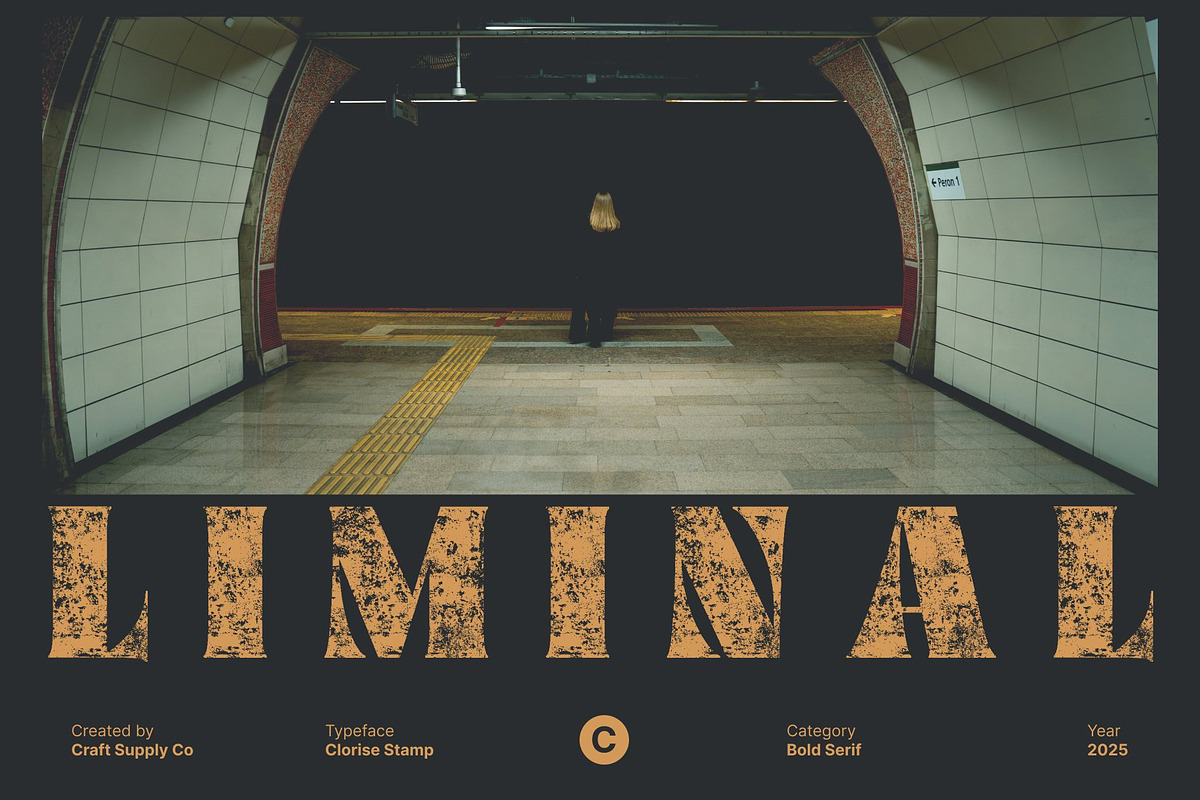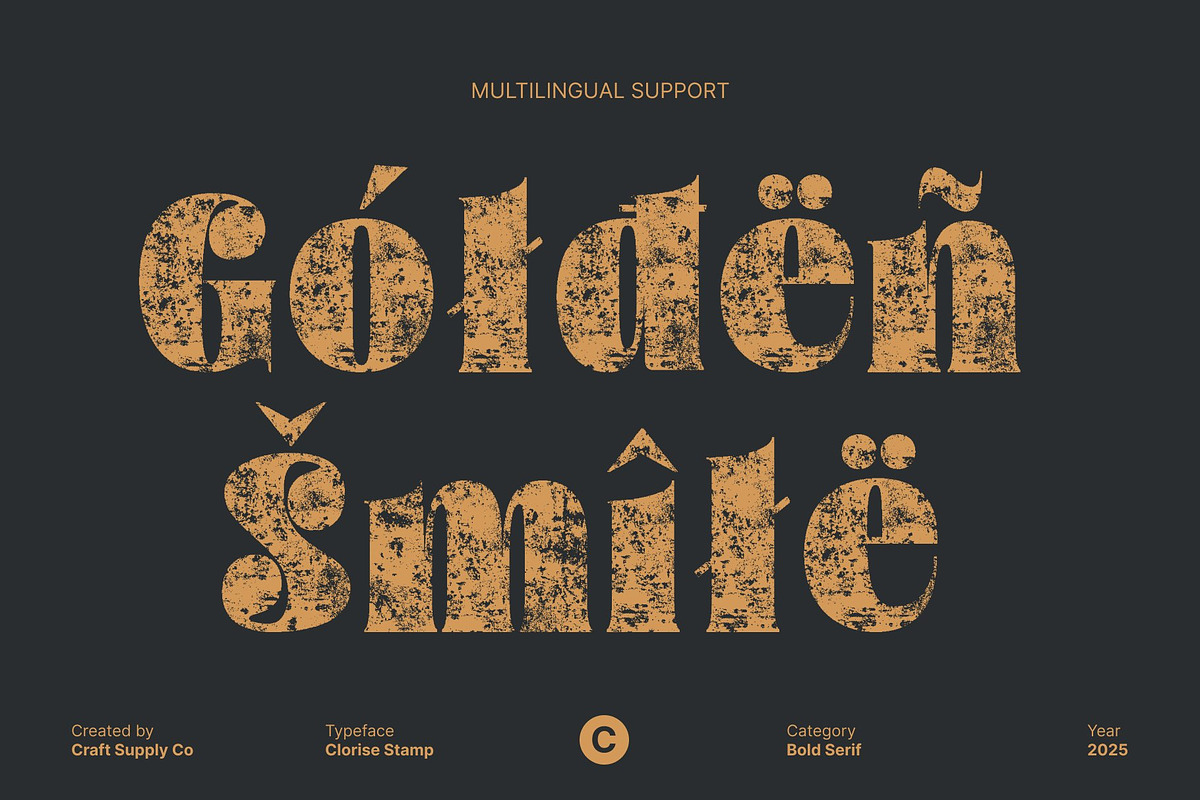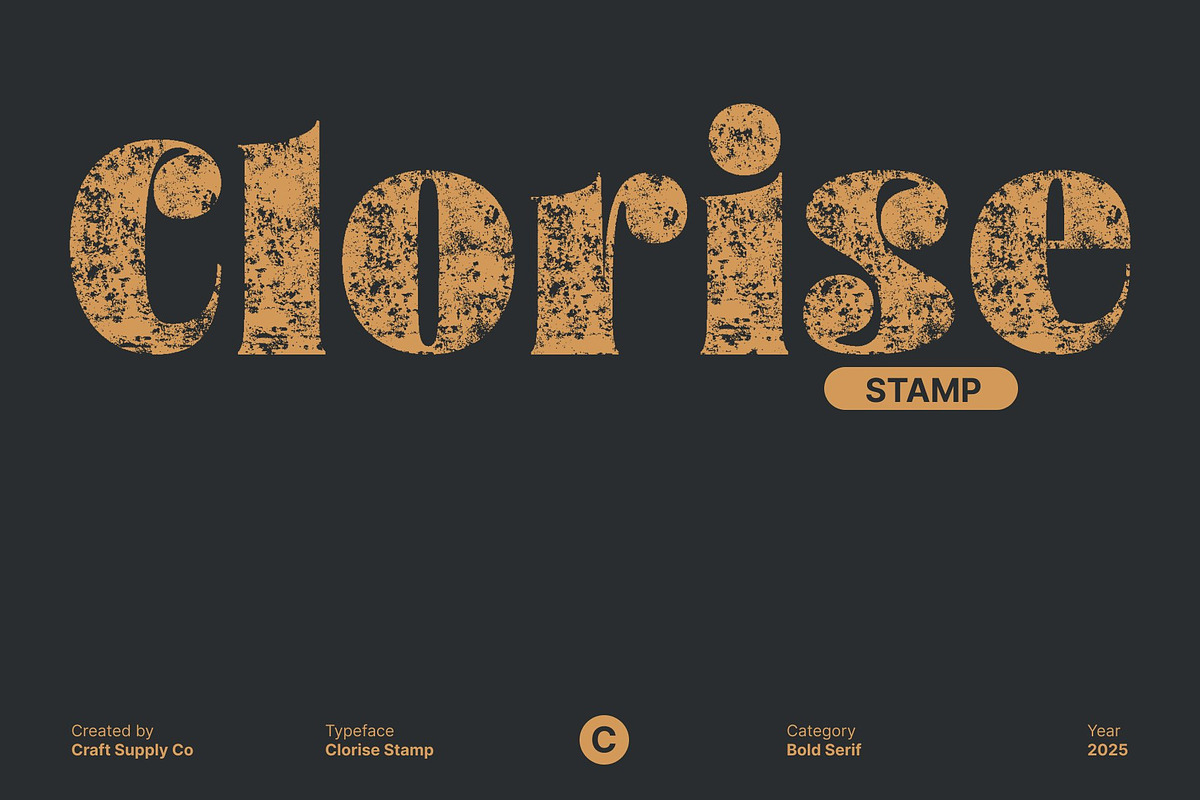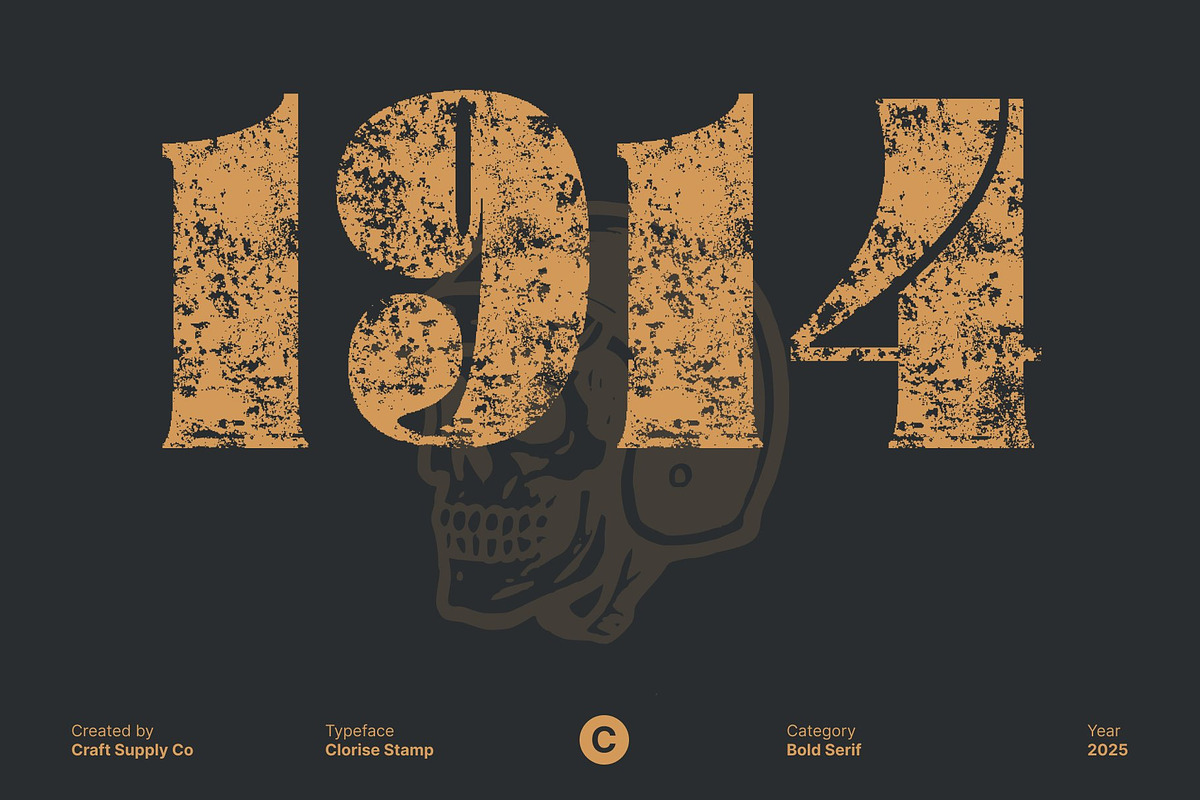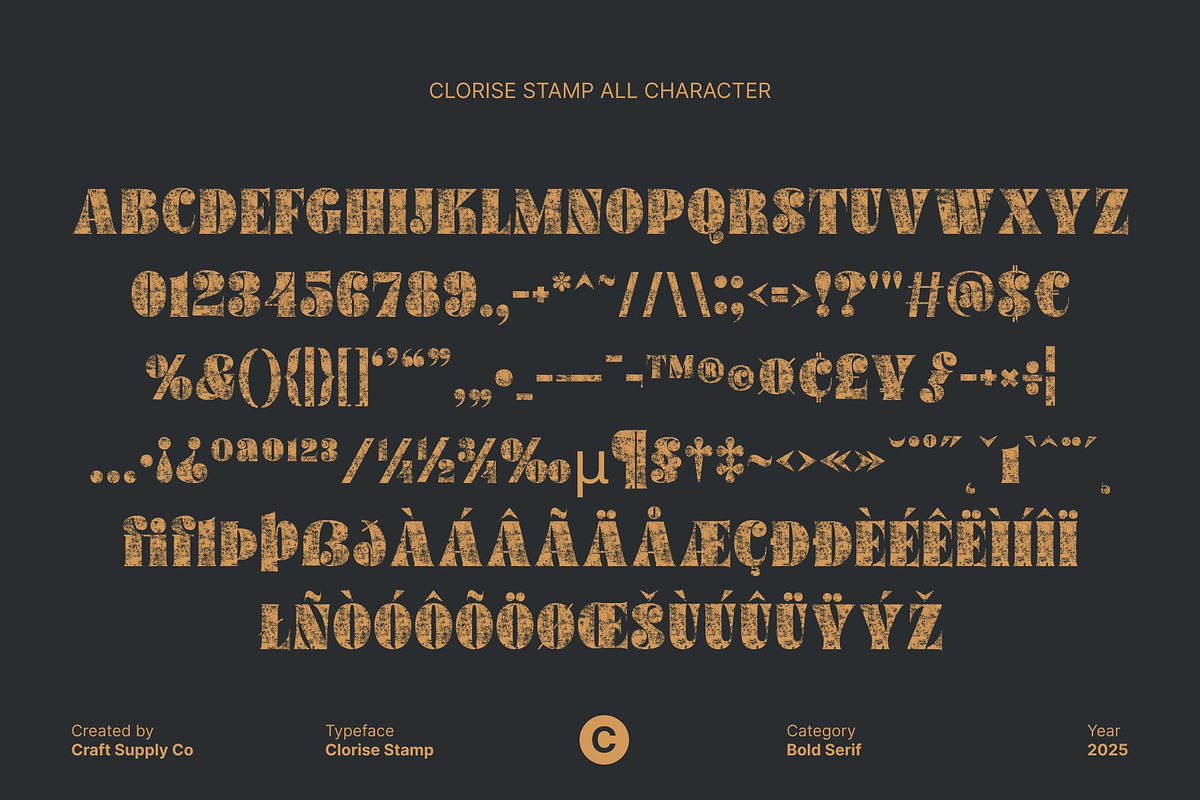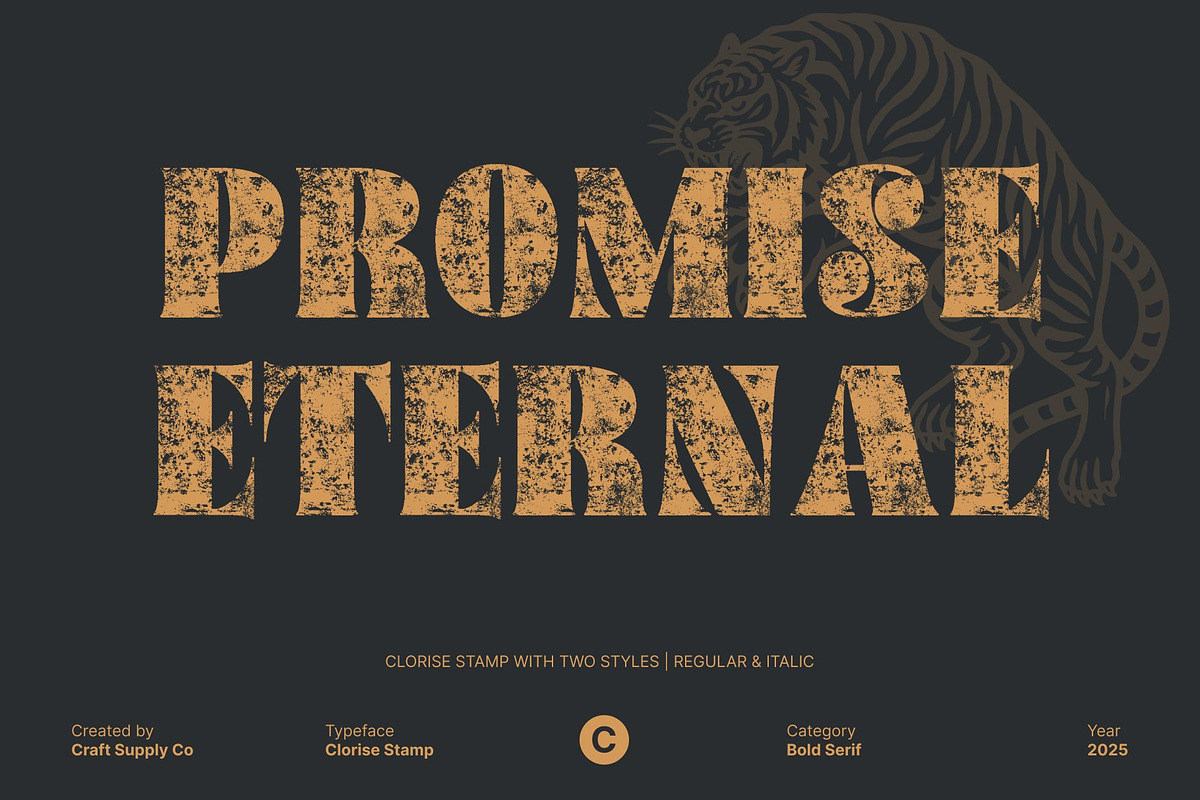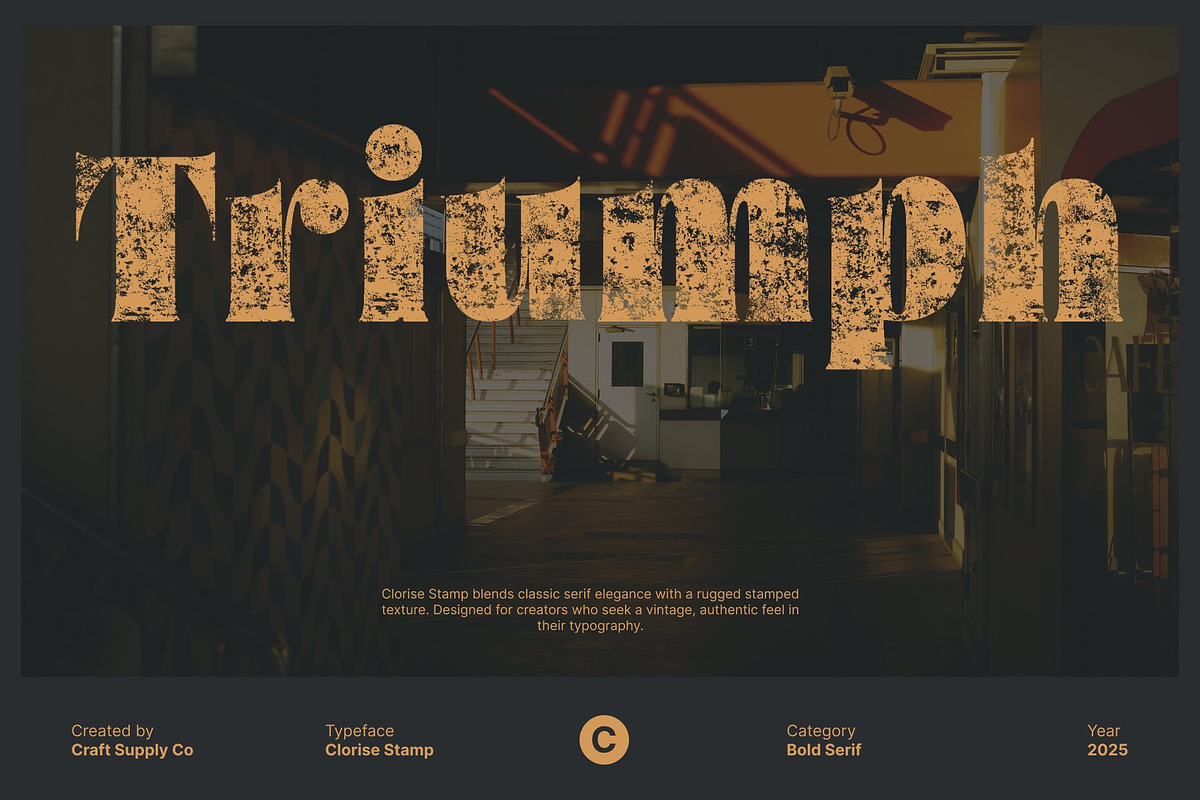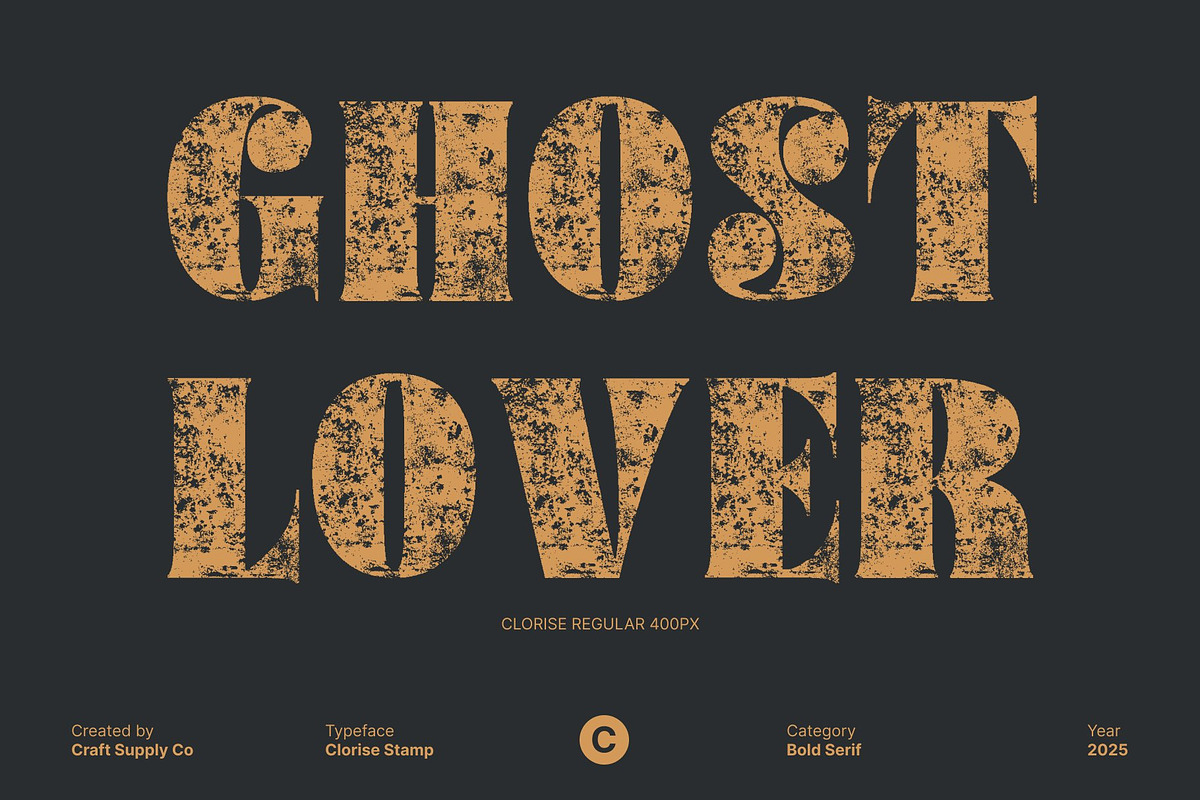
Clorise Stamp
Clorise Stamp: Bold Elegance with Vintage Texture
Modern Serif with Striking Character This is a modern bold serif font that blends strength and beauty in perfect balance. Its bold, confident letterforms exude sophistication while maintaining a sense of artistic flair. Designed to make a statement, it brings both power and elegance to any composition.
Vintage Texture for Artistic Expression The stamp effect introduces a subtle vintage texture, giving each letter a handcrafted and expressive quality. This detail adds depth and authenticity, transforming the clean modern forms into something tactile and soulful ideal for creating designs that feel both refined and character-rich.
Perfect for Elegant and Retro Designs This font shines in branding, packaging, posters, and editorial projects that call for bold sophistication with a touch of nostalgia. Its balance of modern structure and vintage imperfection makes it ideal for designers seeking a font that feels strong, artistic, and timelessly stylish.
Refined, Bold, and Expressive With its striking serifs, textured finish, and artistic soul, this font captures the essence of modern elegance infused with vintage charm, making every word a visual statement.